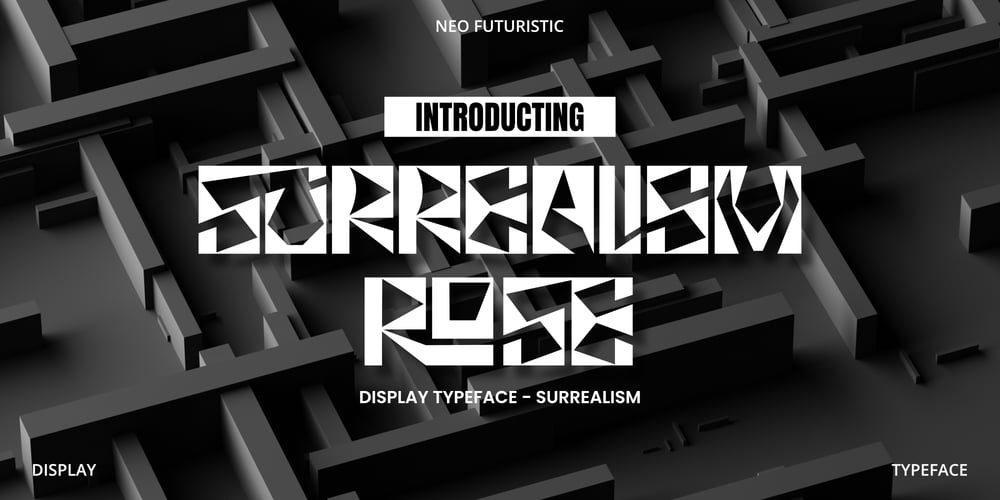
Surrealism Rose
Surrealism Rose font
Surrealism Rose Font Family was designed by Eka Rifqi Setiawan and published by Erifqizefont. Surrealism Rose contains 1 styles and family package options. INTRODUCING Surrealism Rose is a unique font, with a Neo Surrealism theme, with a strong character, Surrealism Rose is a techno, sporty, and modern type font that is suitable for your logo design project and also best for your display text title for posters, websites, and animation.We hope you enjoy the font, please feel free to comment if you have any thoughts or feedback. Thanks for purchasing and have fun…